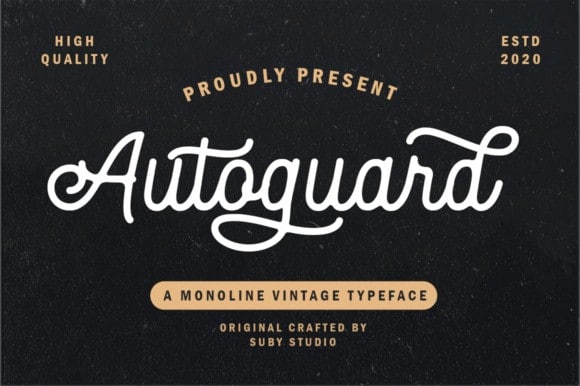
Autoguard Monoline Vintage Font
Autoguard Font is made by hand with love for traditional sign paintings. All characters have imperfect shapes that give a natural look to the design. This vintage concept has a clean, modern, unique and old-fashioned version.
It’s easy to work together and perfect for creating traditional style logos, labels, packaging designs, writing for t-shirts and many others.